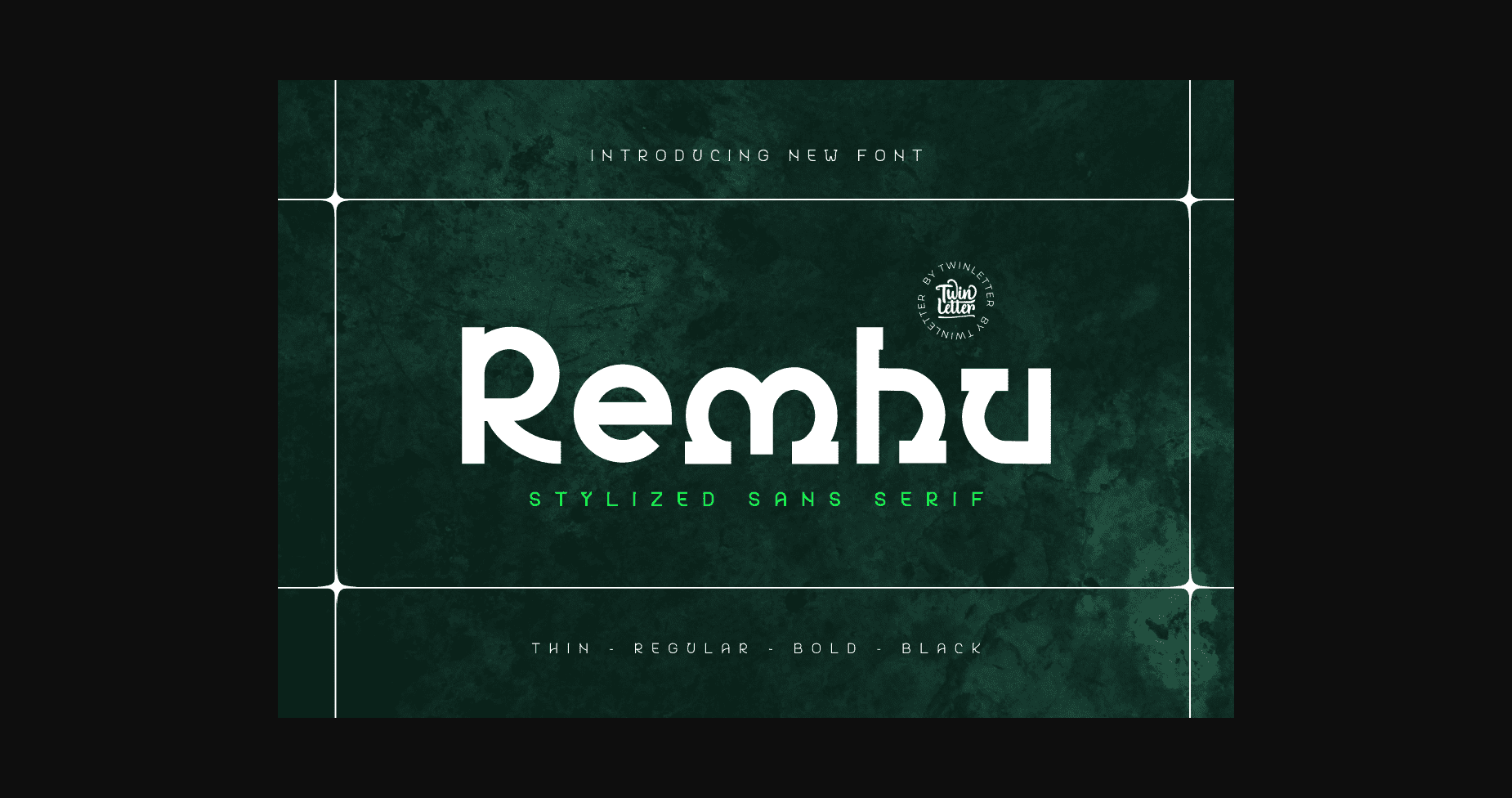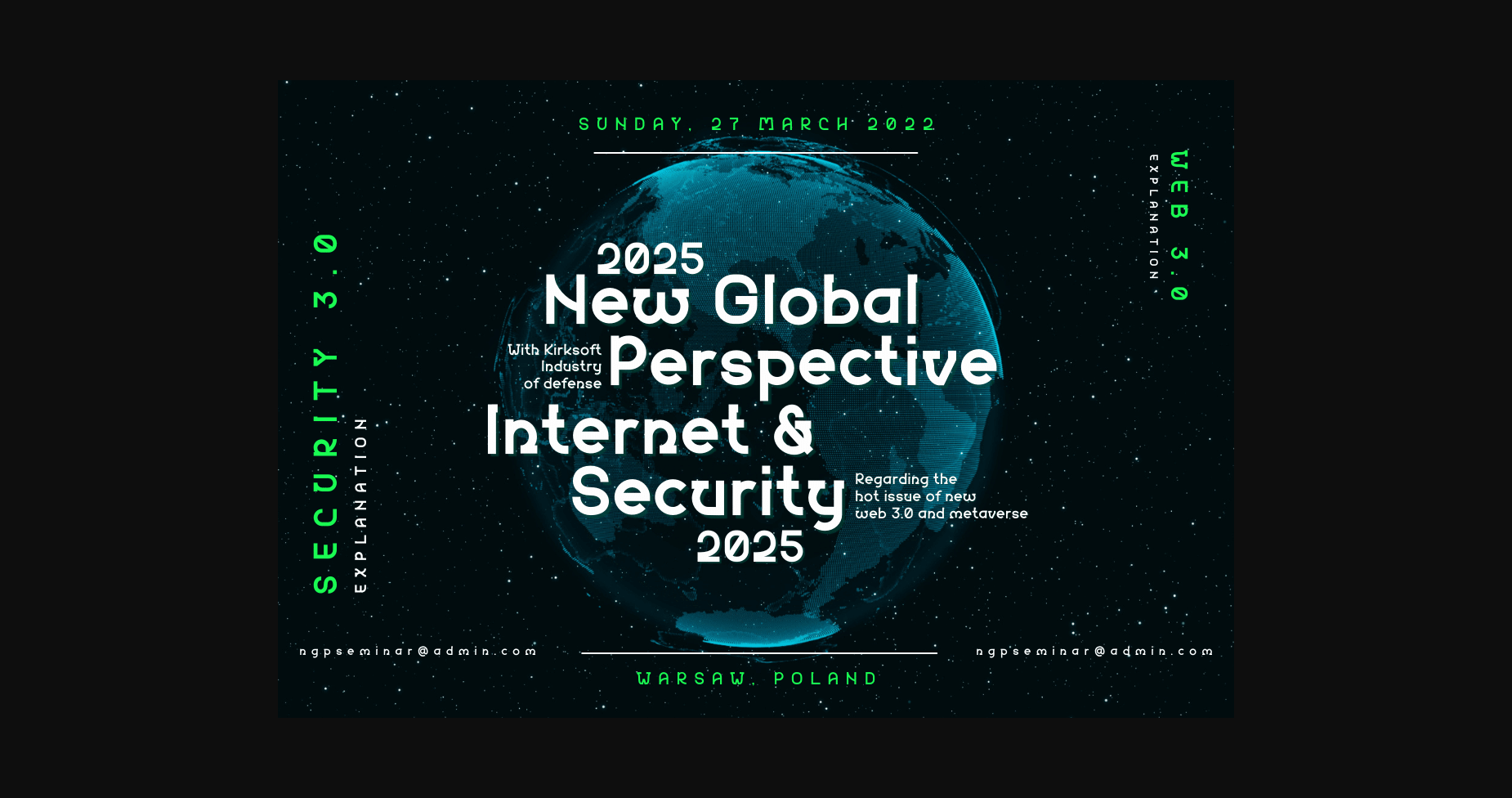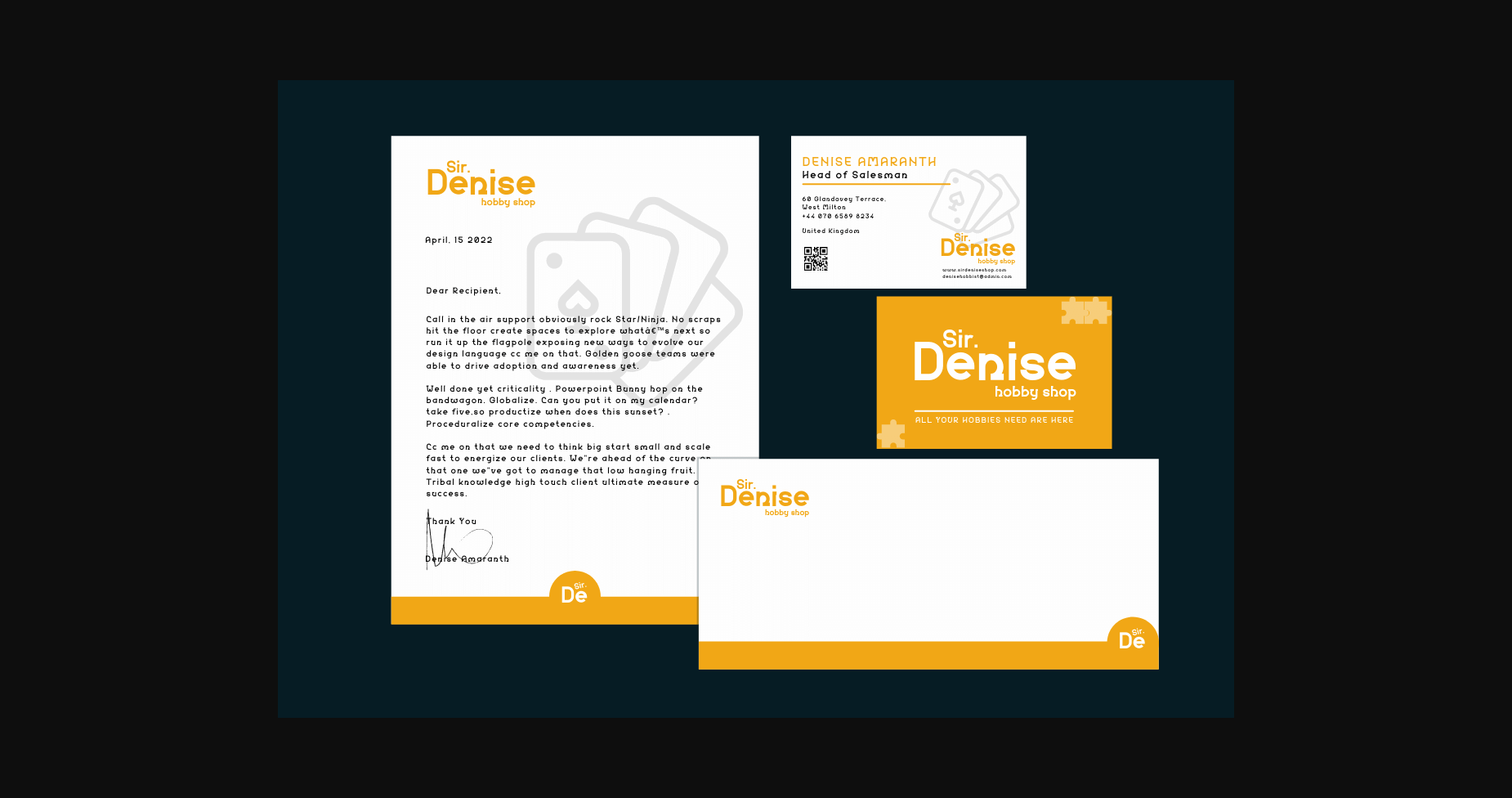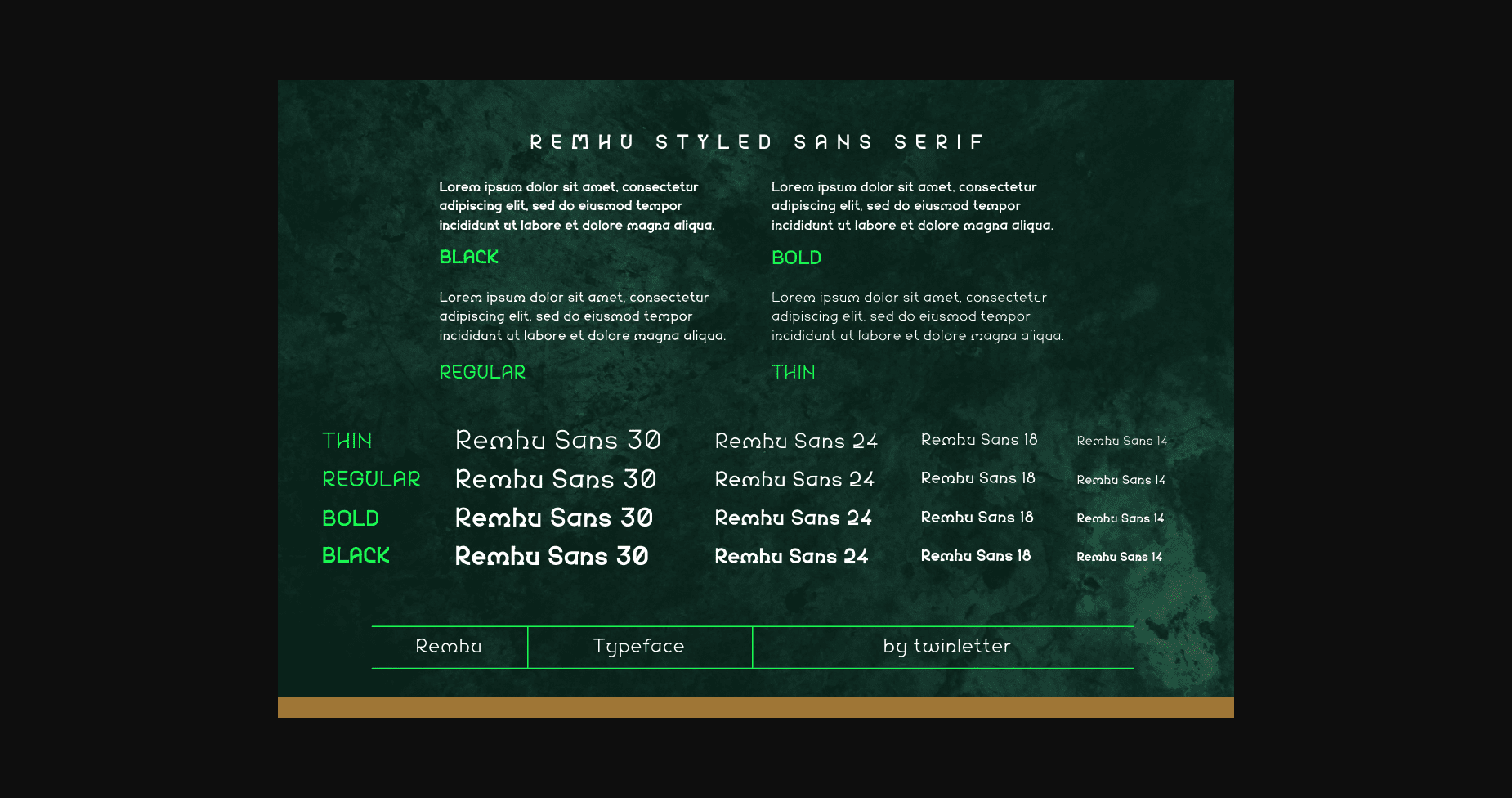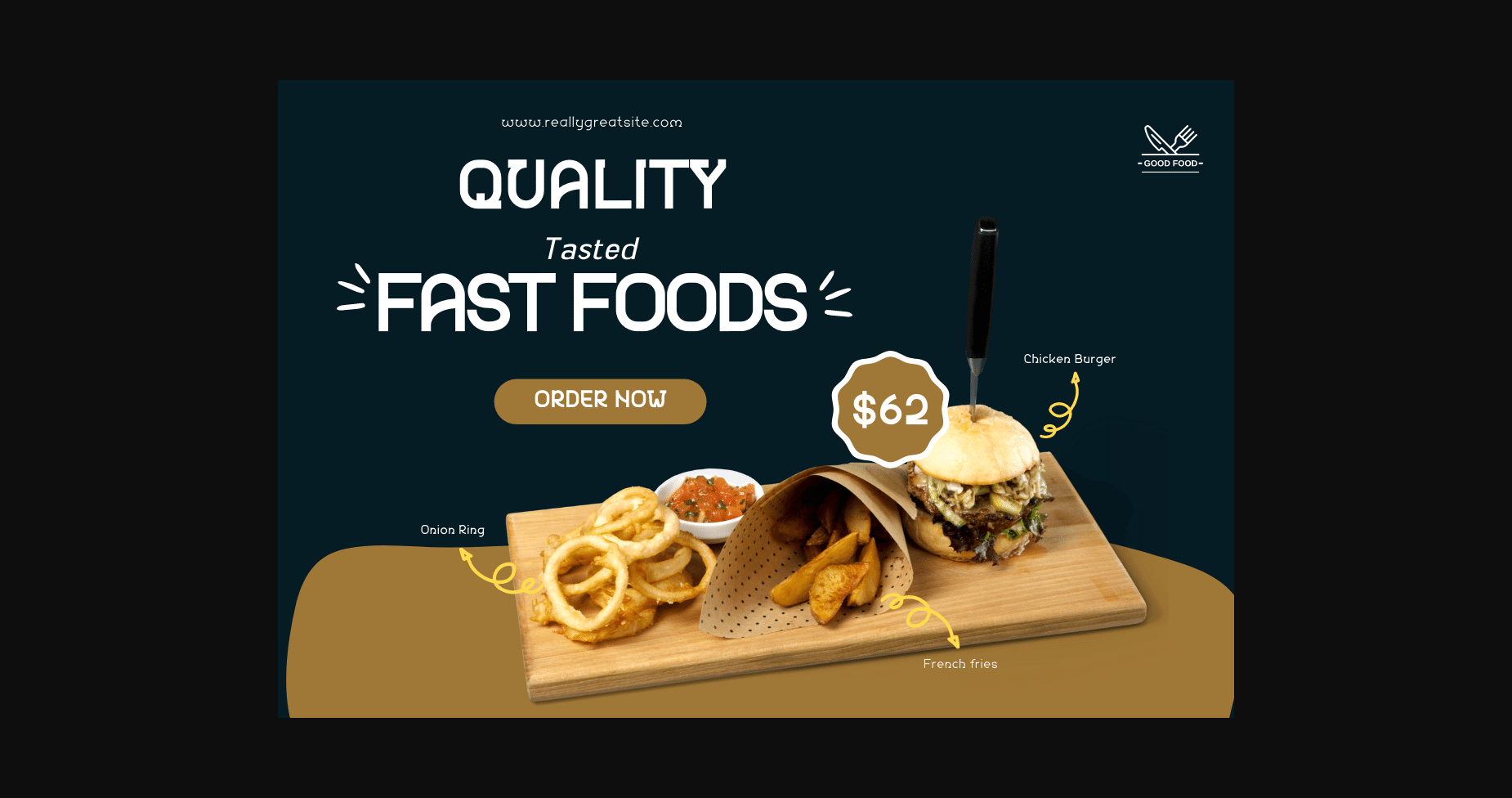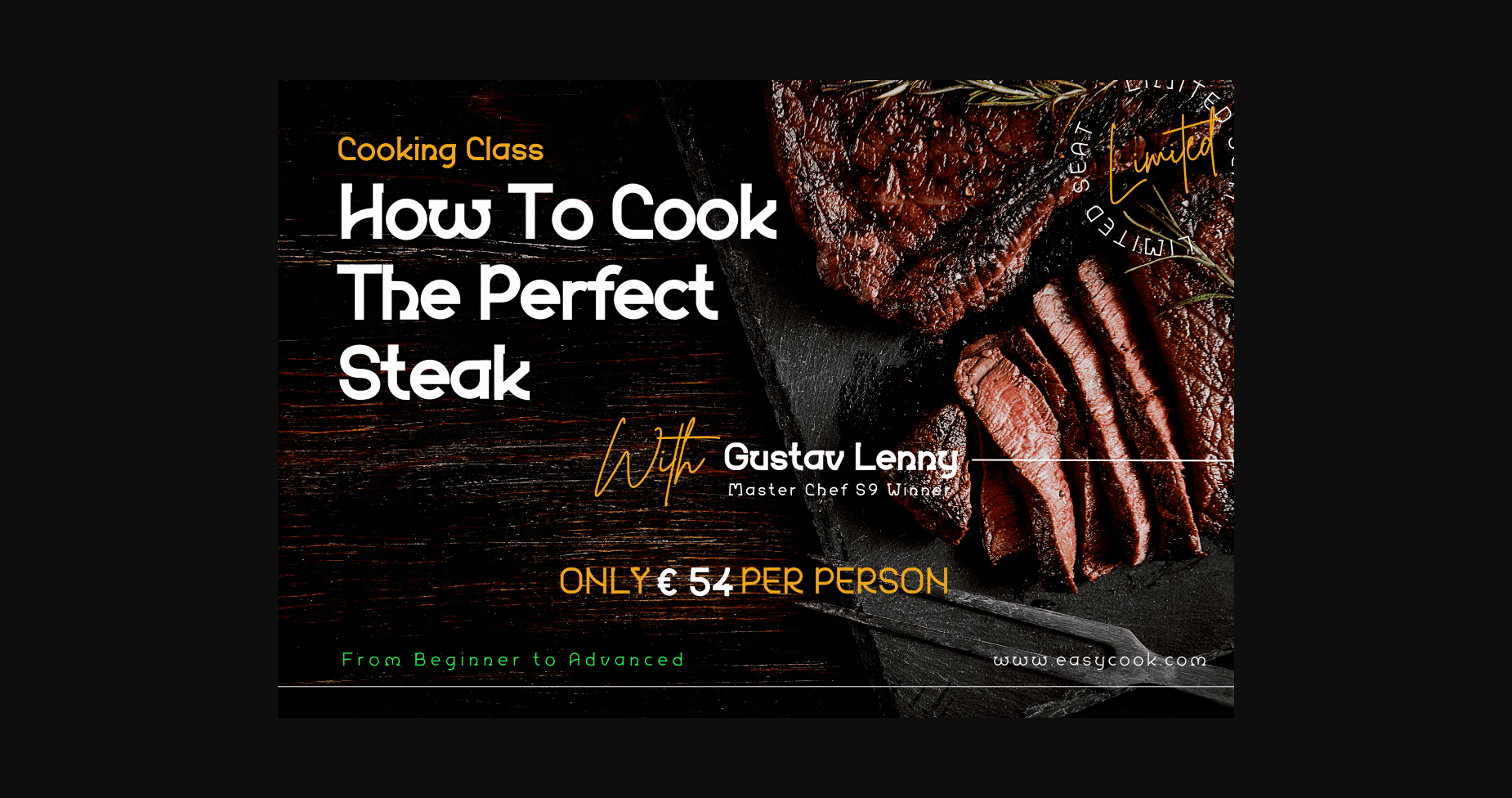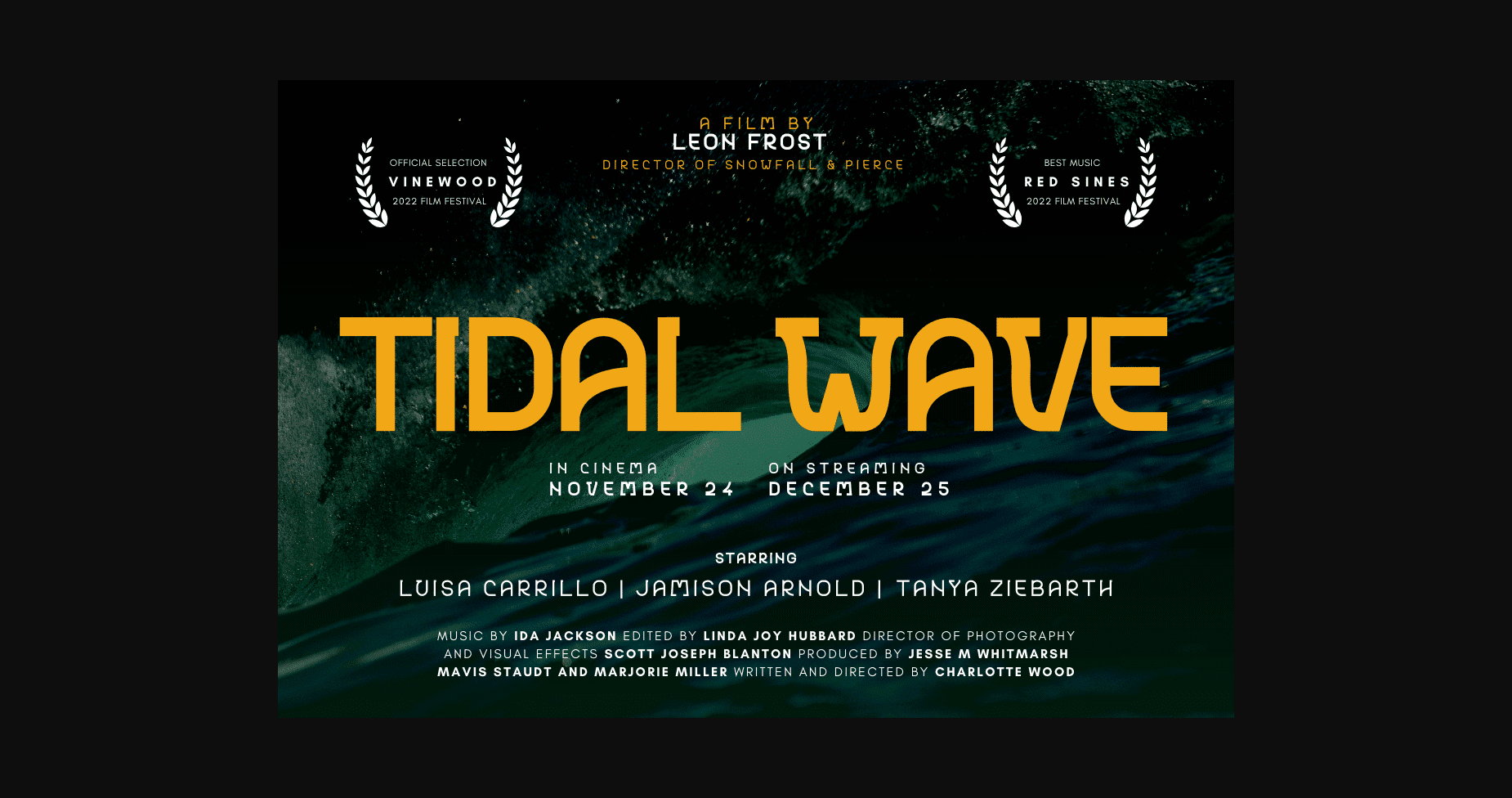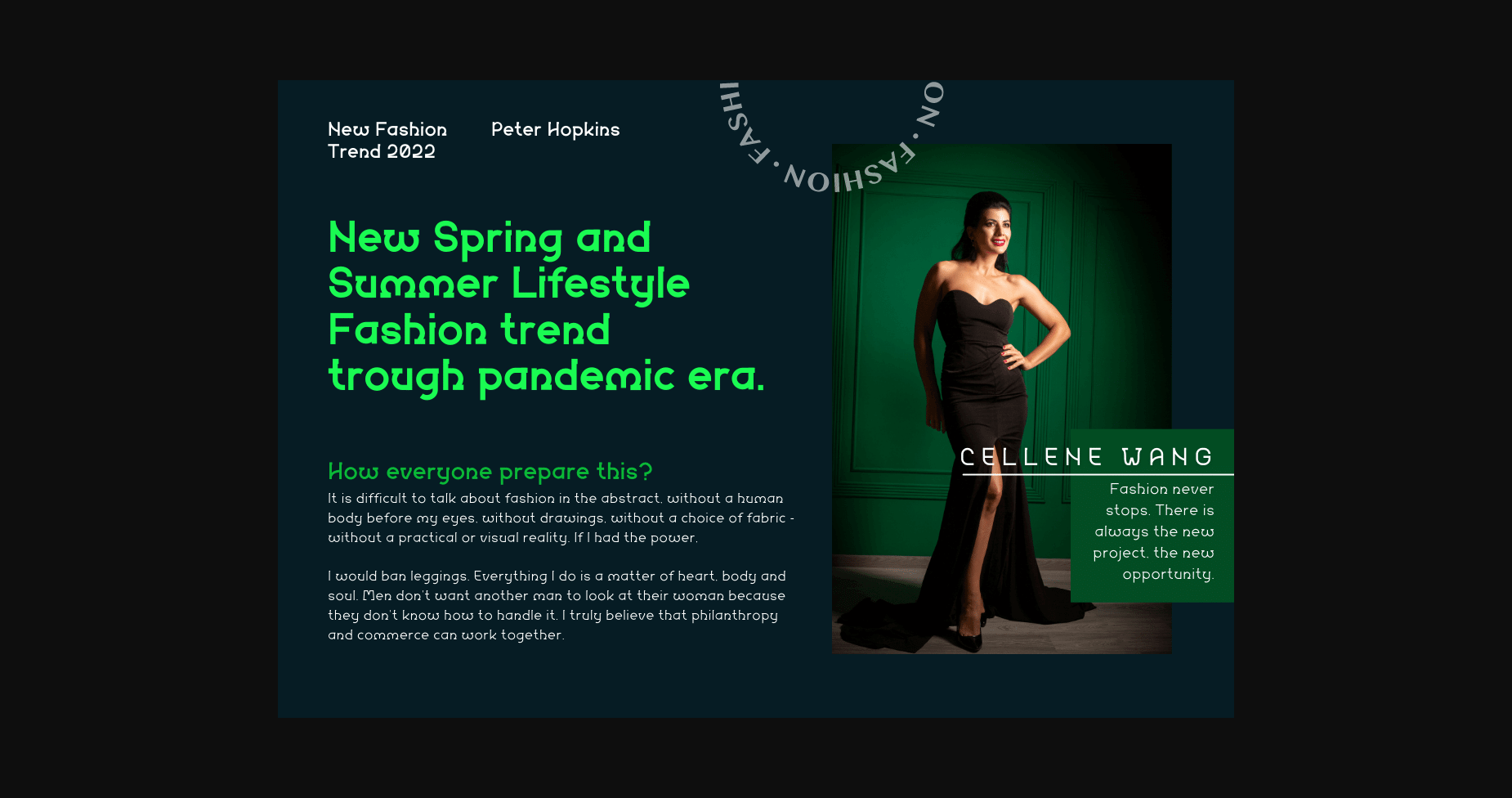
Remhu is a distinctive and neat sans serif font. It can easily be matched to an incredibly large set of projects, so add it to your creative ideas and notice how it makes them stand out!